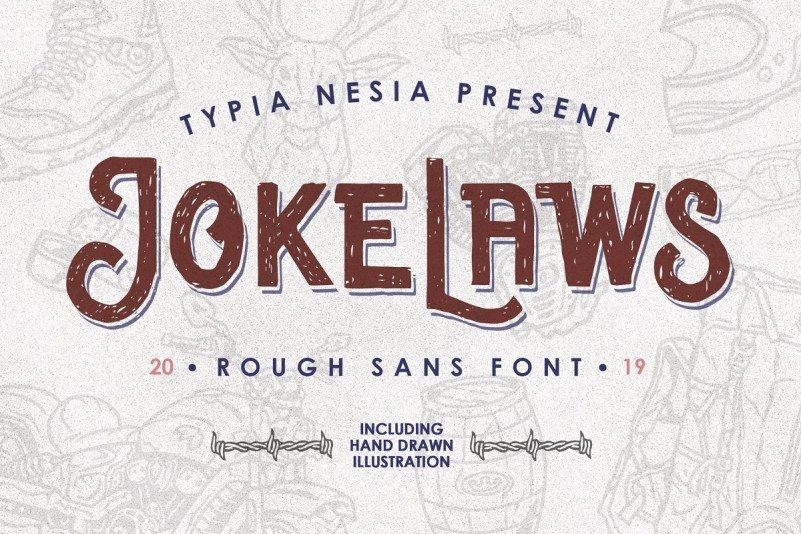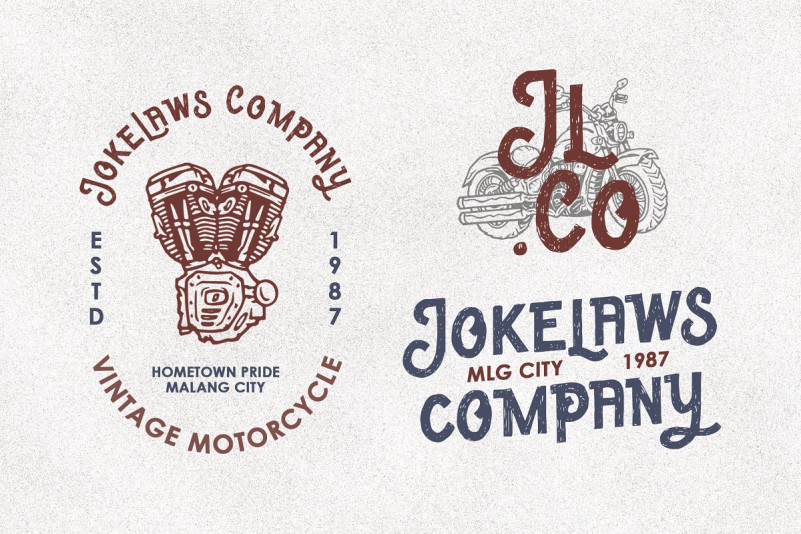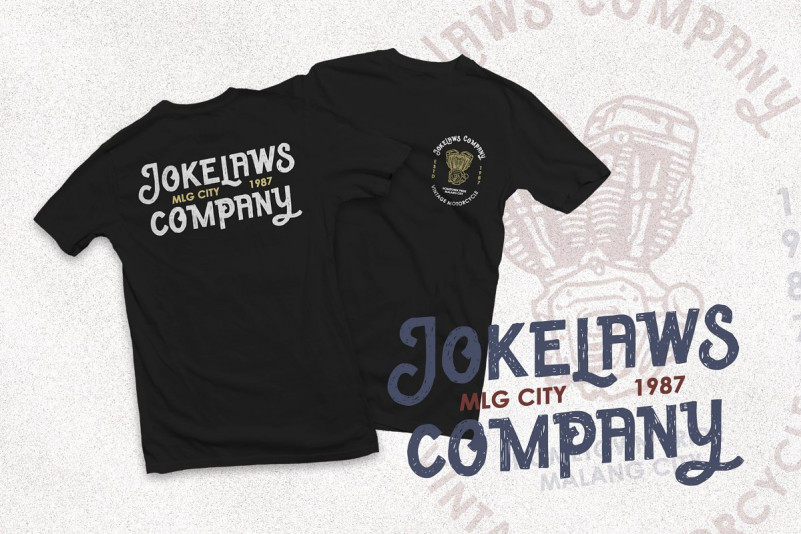
Jokelaws Font
Jokelaws is handcrafted textured vintage font. It can be used in different purposes: lettering and logotype, labels, t-shirts, product packaging, invitations, advertising, and any classic / vintage typography design projects.